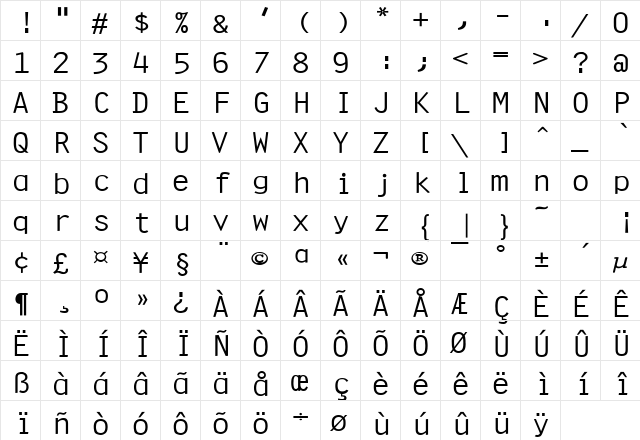
Clean Wide Normal
Design Context for Clean Wide Typeface
Clean Wide takes a measured approach to typography — its balanced proportions and neutral character make it a reliable workhorse for both digital and print work.